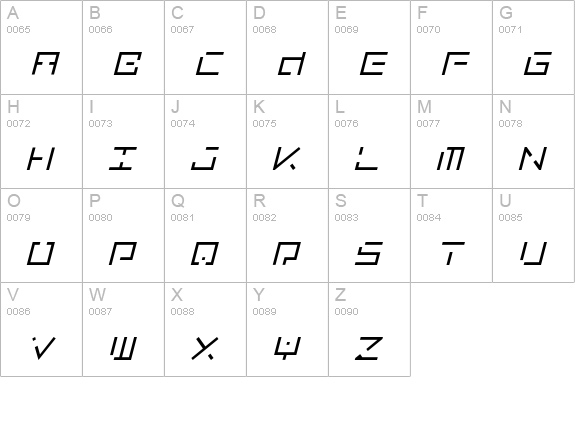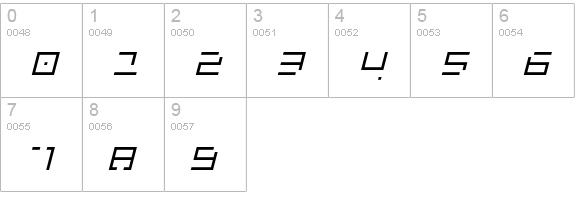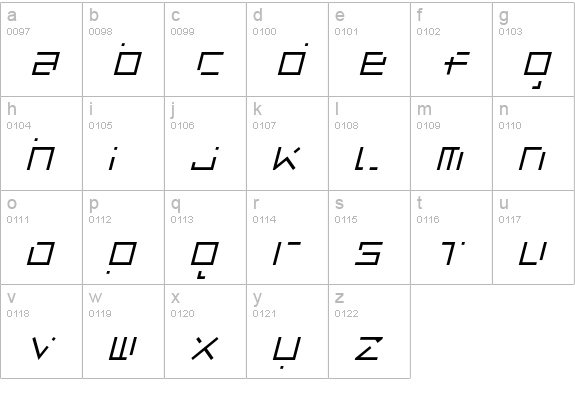
LuggageBrokenLightObl Font Details
LuggageBrokenLightObl font is a unique and eye-catching typeface that is perfect for adding a touch of creativity to your design projects. Its broken and distorted appearance gives it a sense of edginess and character, making it stand out from the crowd. The light oblique style adds a dynamic and modern twist to the overall look. This font is ideal for use in headlines, posters, logos, and any other design where you want to make a bold statement. Its versatility allows it to be paired with both serif and sans-serif fonts, making it a great choice for all kinds of design applications. Best of all, LuggageBrokenLightObl font is completely free to download at FontsMarket.com. So go ahead and add this unique and striking typeface to your collection today!